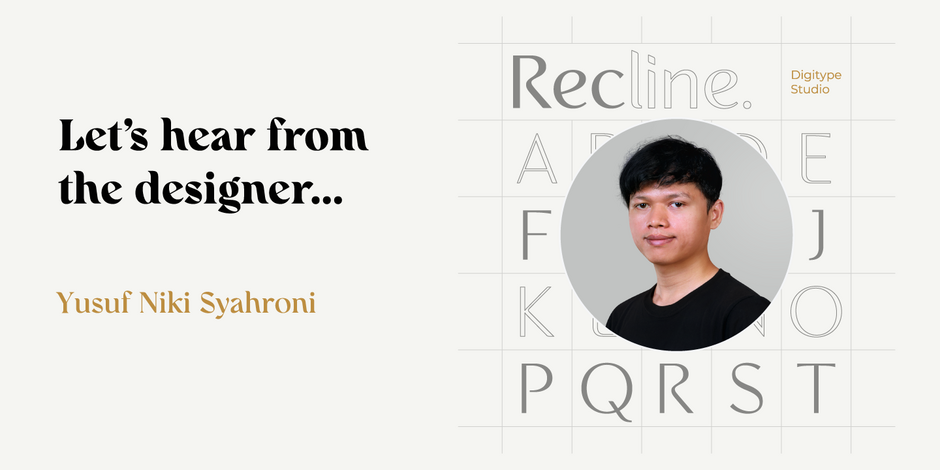
#13 Recline by Digitype Studio
Designer Banner Digitype Studio
Q1: What should graphic communicators look for when choosing a typeface family for a specific project? What kind of typeface designs are best for pairing with your typeface?
Ans: The suitability of the font with the design theme you want to make. Because each font has a different character to represent the business in a different way. Fonts are like shoes, there are shoes that are suitable for parties, going to work, going to school, and so on, so we just have to adapt them to our needs.
Modern chic calligraphy fonts
especially suitable for Recline Font
Q2: What were your goals when designing the typeface? What is the one or two most important things graphic communicators should know about the typeface, or how will the family of fonts help them create better design?
Ans: Make a typeface that is liked by many people.
First
Pay attention to tone and message, this we must think about when choosing a typeface. Because there are many types of typography that can represent different moods and effects through a design.
Second
Typography Hierarchy, with the graphic designer font family, will be very helpful in making a hierarchy. Hierarchy can be created using a proper mix of Weights, Sizes, and Colors. Various font family weights can provide the right choice for determining Headlines, Subheadlines, and Body text.